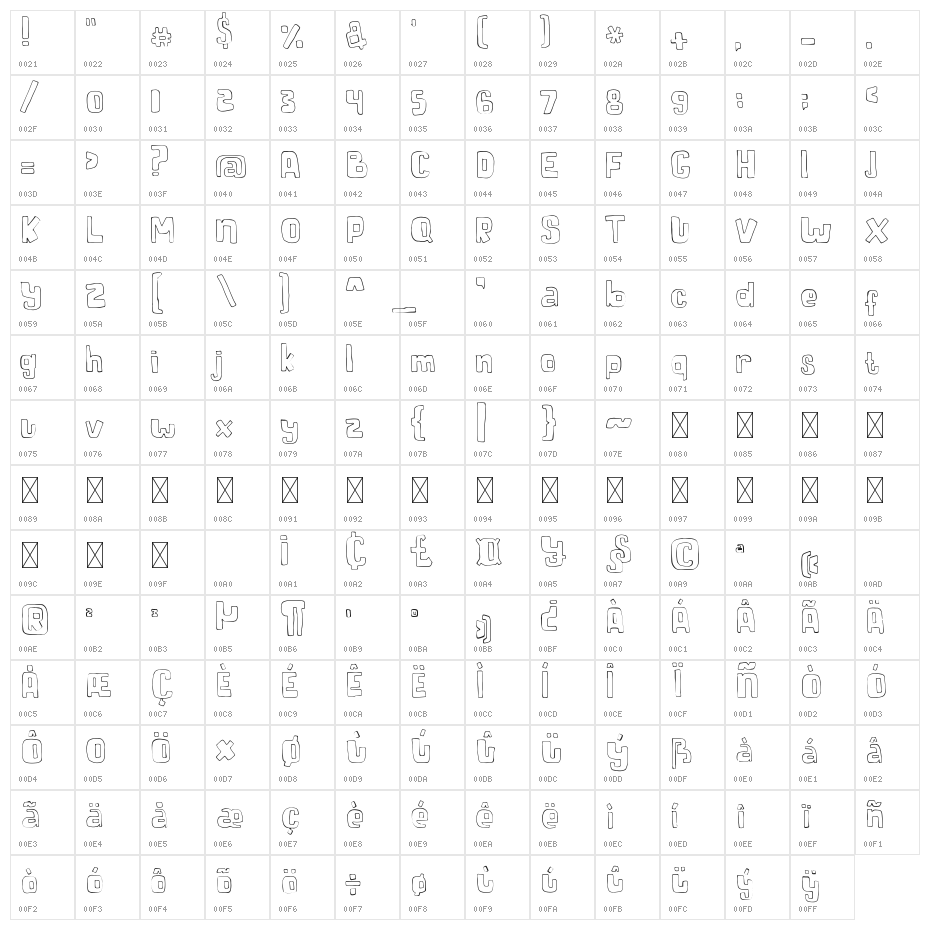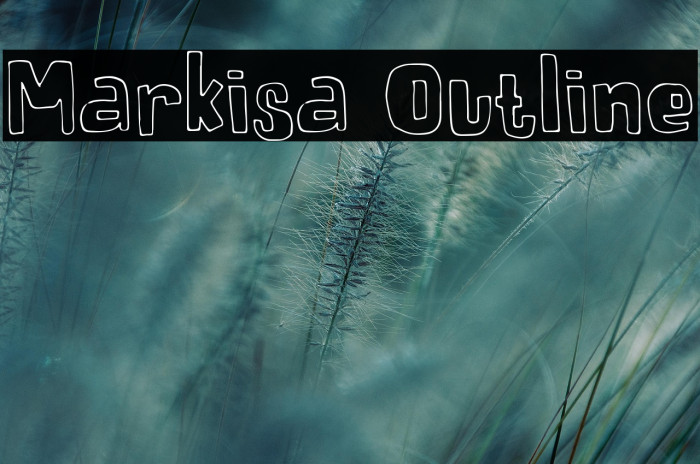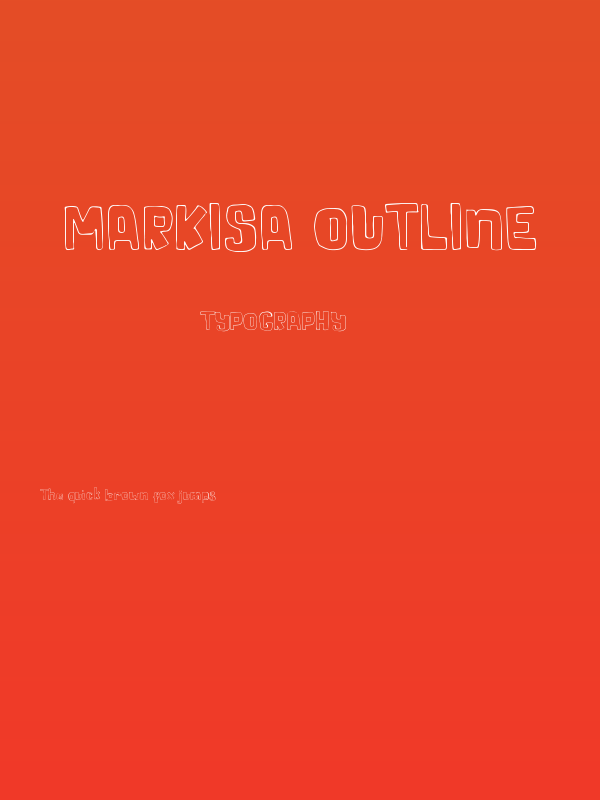
Markisa Outline Font
| Categorie | Cartoon |
| Stile generale | Playful, Casual |
| Progetti proposti | Ideal for children's books, playful branding, posters, and creative design projects. |